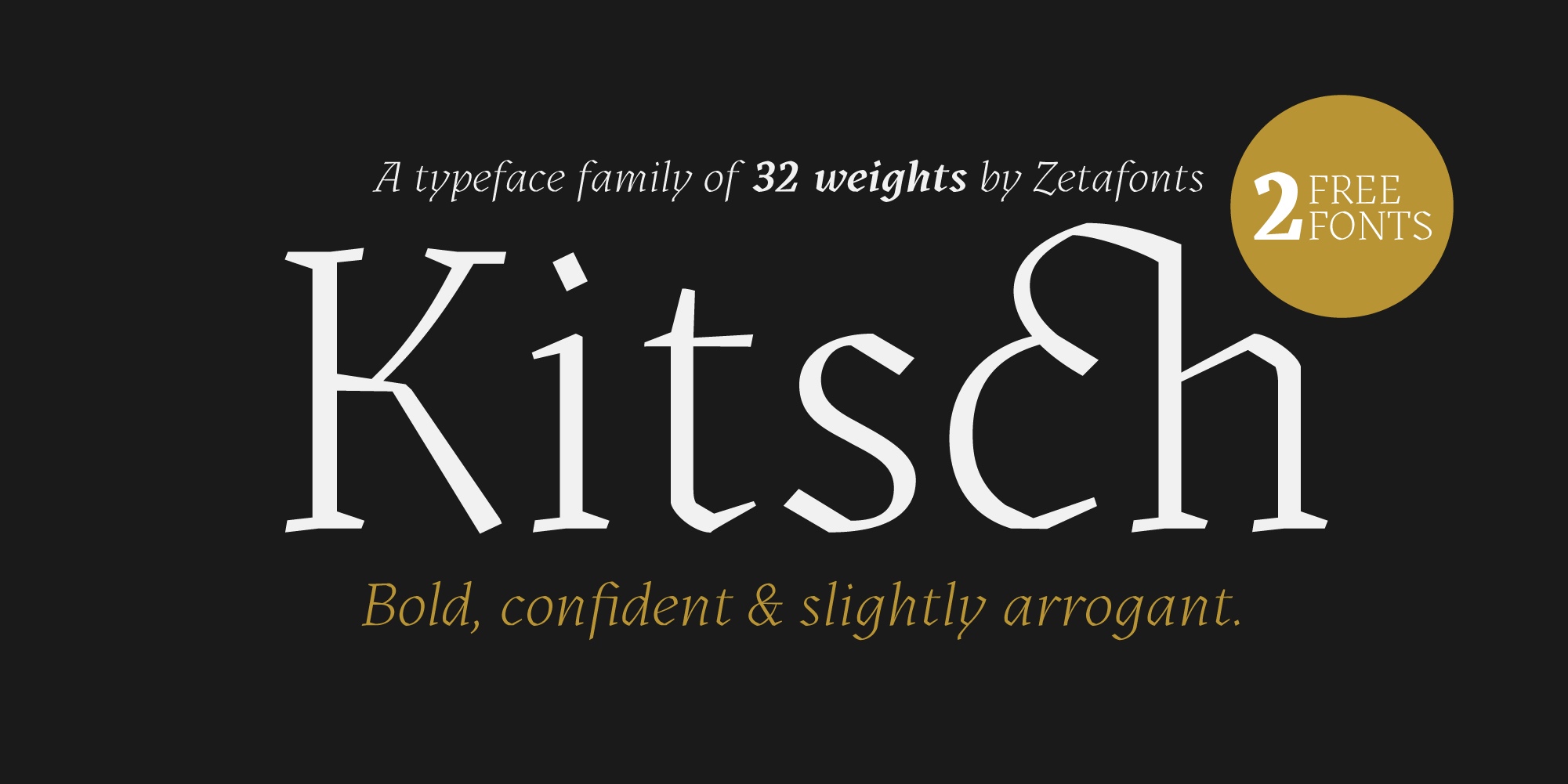
Kitsch Font
Kitsch Font is perfect for retro pop culture branding, vintage souvenir packaging, campy entertainment marketing, quirky gift shop signage, nostalgic toy advertising, ironic fashion campaigns, playful event graphics, and deliberately campy communications.
What makes Kitsch Font exciting is its deliberate charm that embodies the endearing appeal and nostalgic humor of deliberately over-the-top design with retro authenticity and playful sophistication. The font features exaggerated letterforms with campy proportions and kitschy character variations that evoke vintage postcards, roadside attractions, and the delightful excess of mid-century popular culture and tourist memorabilia. Its distinctive campy styling and nostalgic appeal communicate playfulness, irony, and retro charm, making every message feel lovingly exaggerated and touched by the endearing beauty of intentional kitsch and vintage camp aesthetic.
The Kitsch Font family includes regular weight with uppercase and lowercase letters, numerals, punctuation marks, and special characters. Premium versions often feature campy alternates and retro elements that enhance the playful, vintage aesthetic perfect for nostalgic and entertainment applications.
This delightfully campy typeface brings instant nostalgia and retro credibility to any kitsch-focused project. Kitsch Font Free Download offers exceptional value for vintage entertainment businesses and nostalgic brands seeking to communicate retro charm, playful irony, and campy authenticity to audiences who appreciate vintage pop culture and nostalgic humor.
The playful character of Kitsch Font makes it particularly valuable for vintage gift shops, retro entertainment venues, and campy fashion brands. Its excellent readability ensures nostalgic messaging and retro communications remain clear while maintaining the distinctive kitschy aesthetic that appeals to customers seeking authentic vintage experiences and playful camp culture.
Retro entertainment marketers appreciate how Kitsch Font effortlessly conveys vintage authenticity and campy charm. The font's exaggerated proportions and kitschy details create delightful brand materials that establish connections with audiences who value retro pop culture, nostalgic humor, and the endearing appeal of intentional kitsch and vintage camp aesthetics.
The versatile campiness of this typeface extends to vintage collectibles, retro gaming, and nostalgic entertainment where kitschy authenticity enhances retro credibility and playful appeal. Kitsch Font Free Download provides creative professionals with an essential tool for developing memorable, charm-driven designs that resonate with audiences who embrace vintage pop culture, retro humor, and the deliberately delightful excess of kitsch aesthetics in their nostalgic and entertainment experiences.